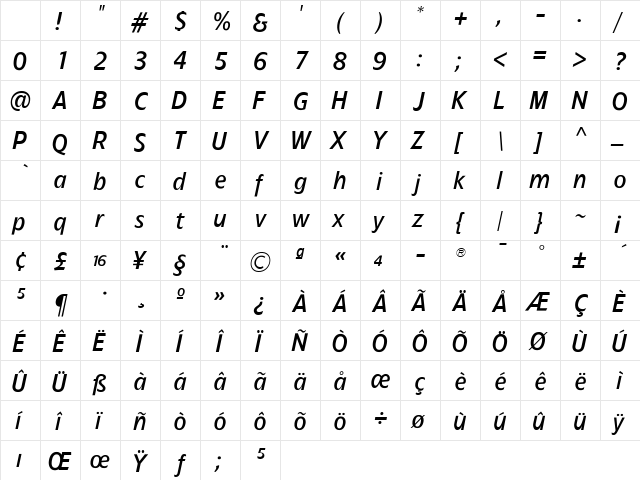
Complete TFForeverTwo Italic glyph index. Displaying only characters natively supported by TFForeverTwo Italic font.
TFForeverTwo is a composed and adaptable typeface that performs quietly and consistently across a wide range of design contexts. The slanted form adds forward momentum and visual energy.
Pro Tip: Use TFForeverTwo for emphasis, pull quotes, and subheadings where its slanted energy can add rhythm to the layout.